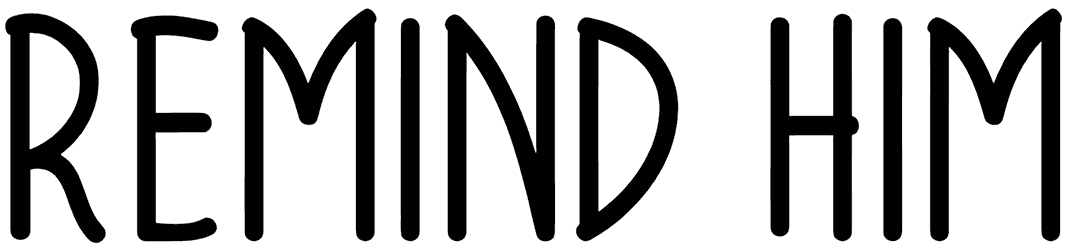
Remind Him Font
The script font Remind Him has a sweet, youthful vibe. There are no lowercase letters or numerals to be found; just capitals. You will unquestionably be ahead of the curve if you slap this handwriting font on any posters…
The script font Remind Him has a sweet, youthful vibe. There are no lowercase letters or numerals to be found; just capitals. You will unquestionably be ahead of the curve if you slap this handwriting font on any posters, greeting cards, banners, and the like.